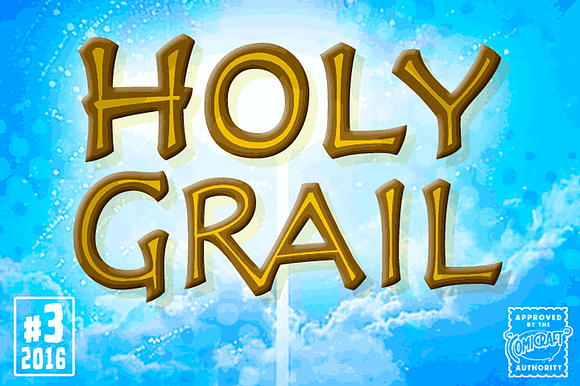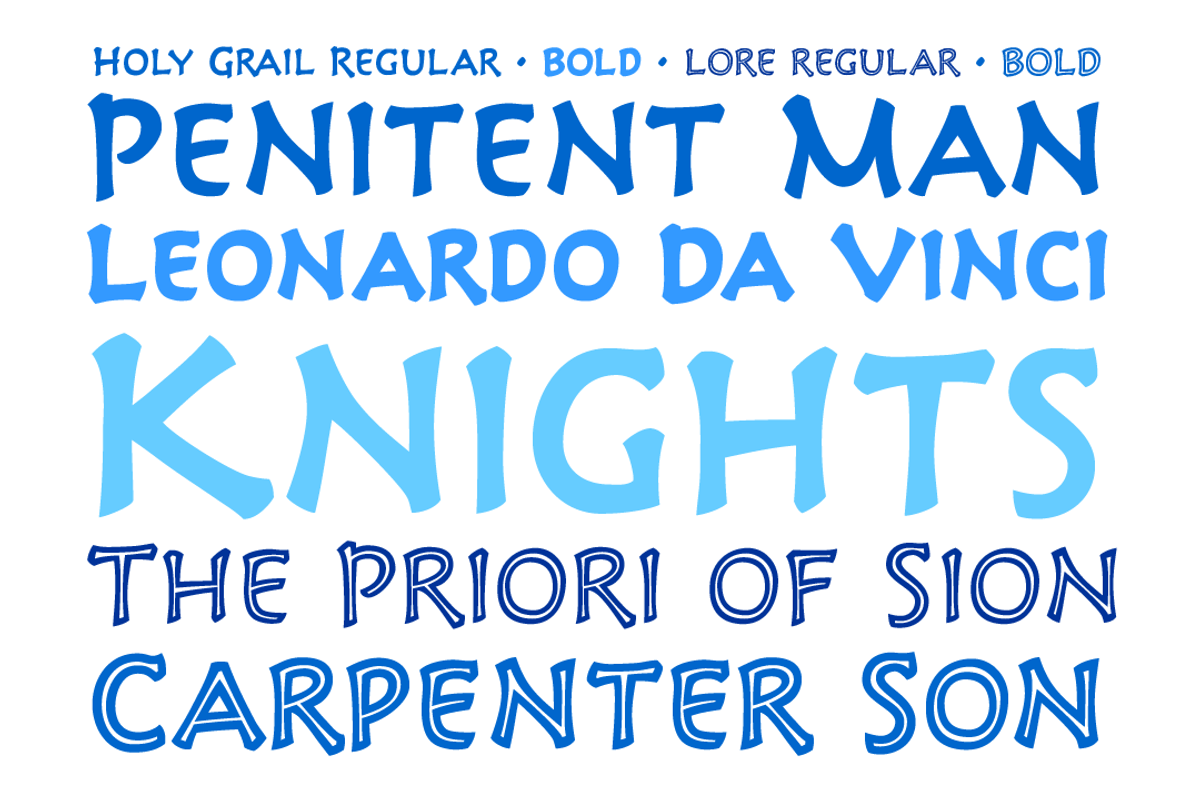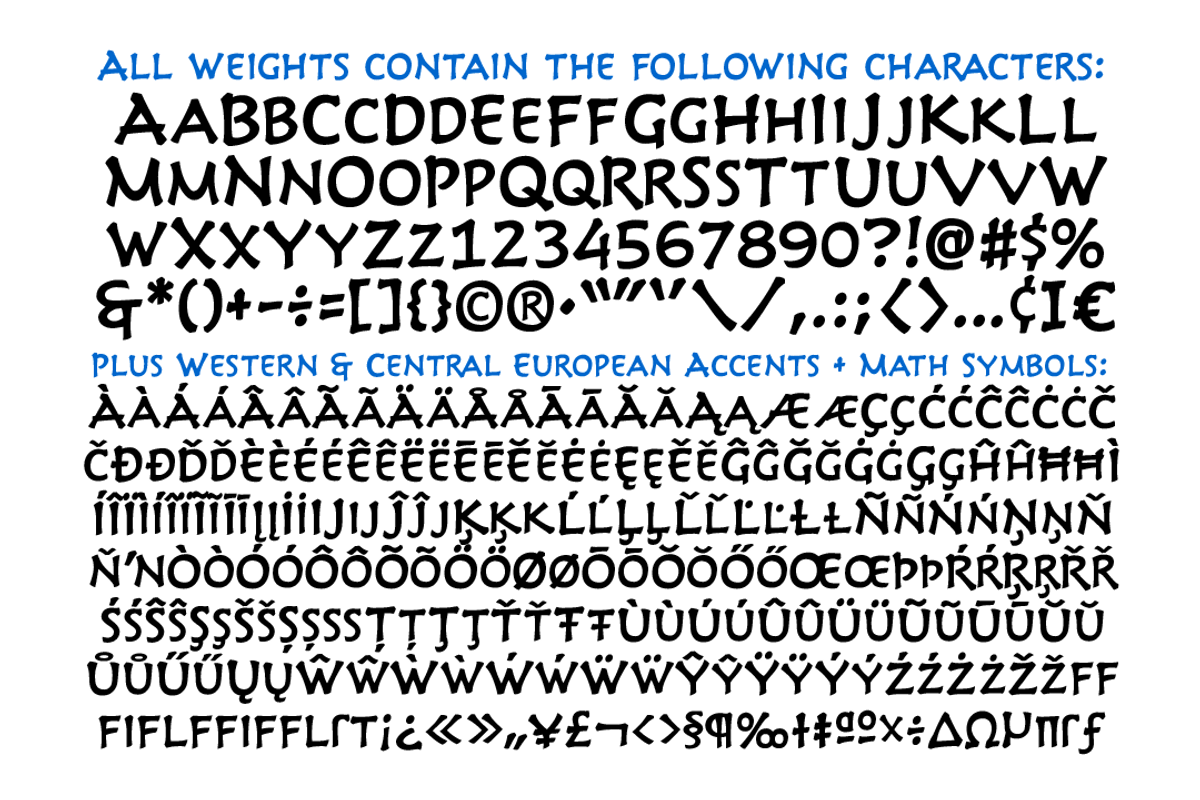
Holy Grail
GOOD GOD! You have circumnavigated the globe and chosen wisely...The Grail is FOUND! Oh... no, Zoot set light to our beacon, which I've just remembered is Grail-shaped. But wait, look! There! Carved in the wall... a Legend: "Here may be found the last words of Joseph of Aramathia: He who finds the Grail must face three, maybe four, challenges. First, the path of God; Second, the word of God; Third, the breath of God, and fourth is the Font of God. Only a font that is valiant, pure of spirit and includes international characters, both European AND Cyrillic -- may find the Holy Grail... in the Castle of AARRGGGHHH..."BRBRThat's all it says; the guy carving it must have died before he could finish.
- Only a font that is valiant, pure of spirit and includes international characters, both European AND Cyrillic -- may find the Holy Grail...